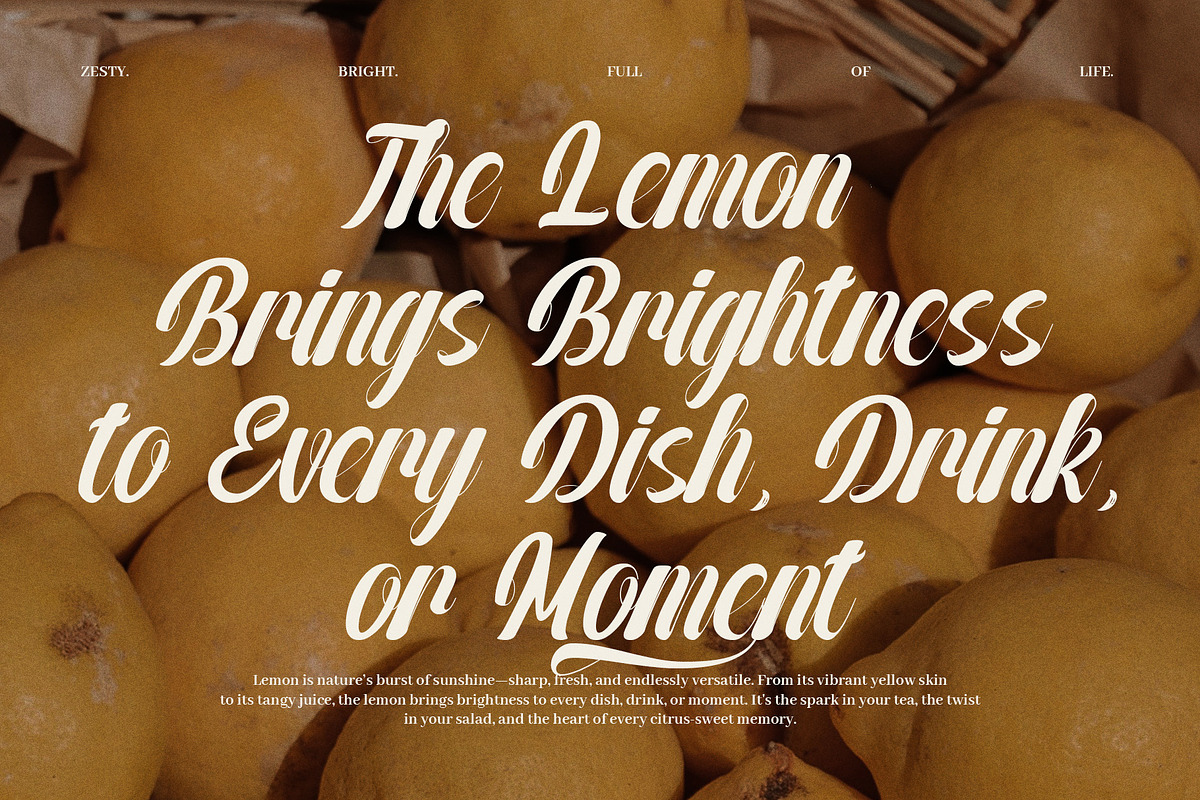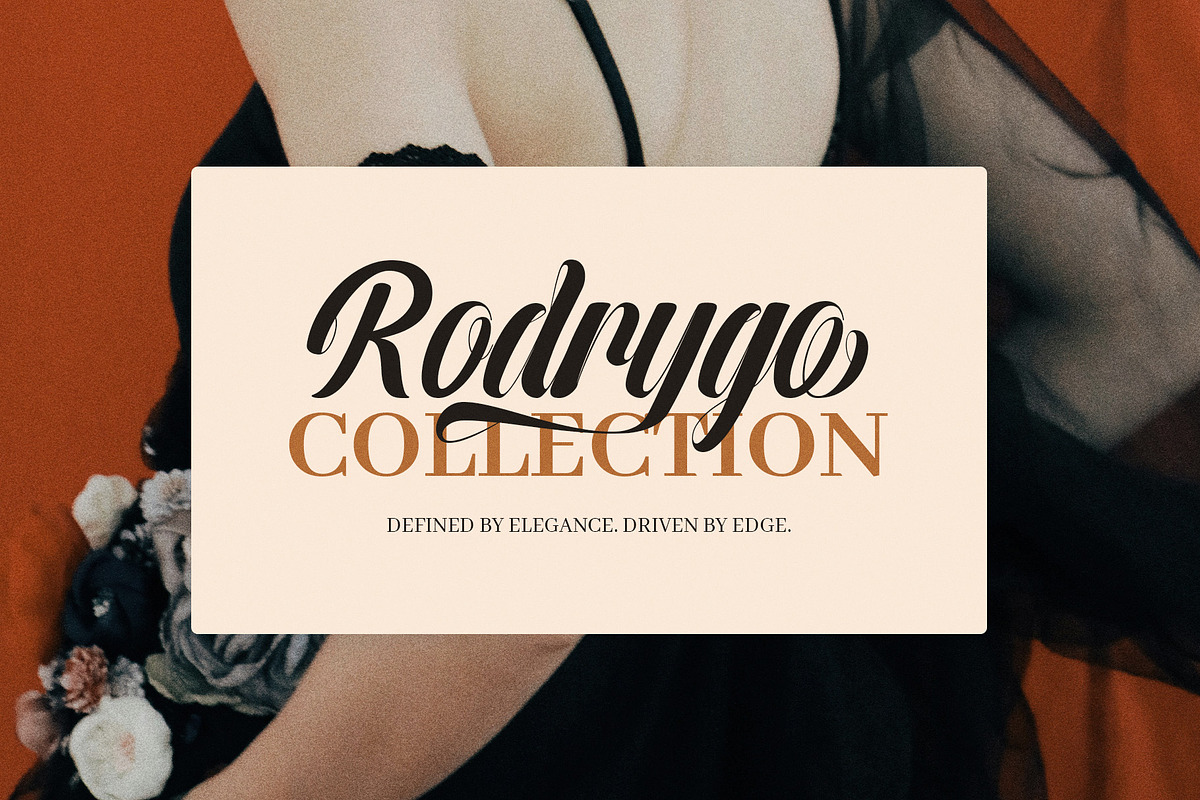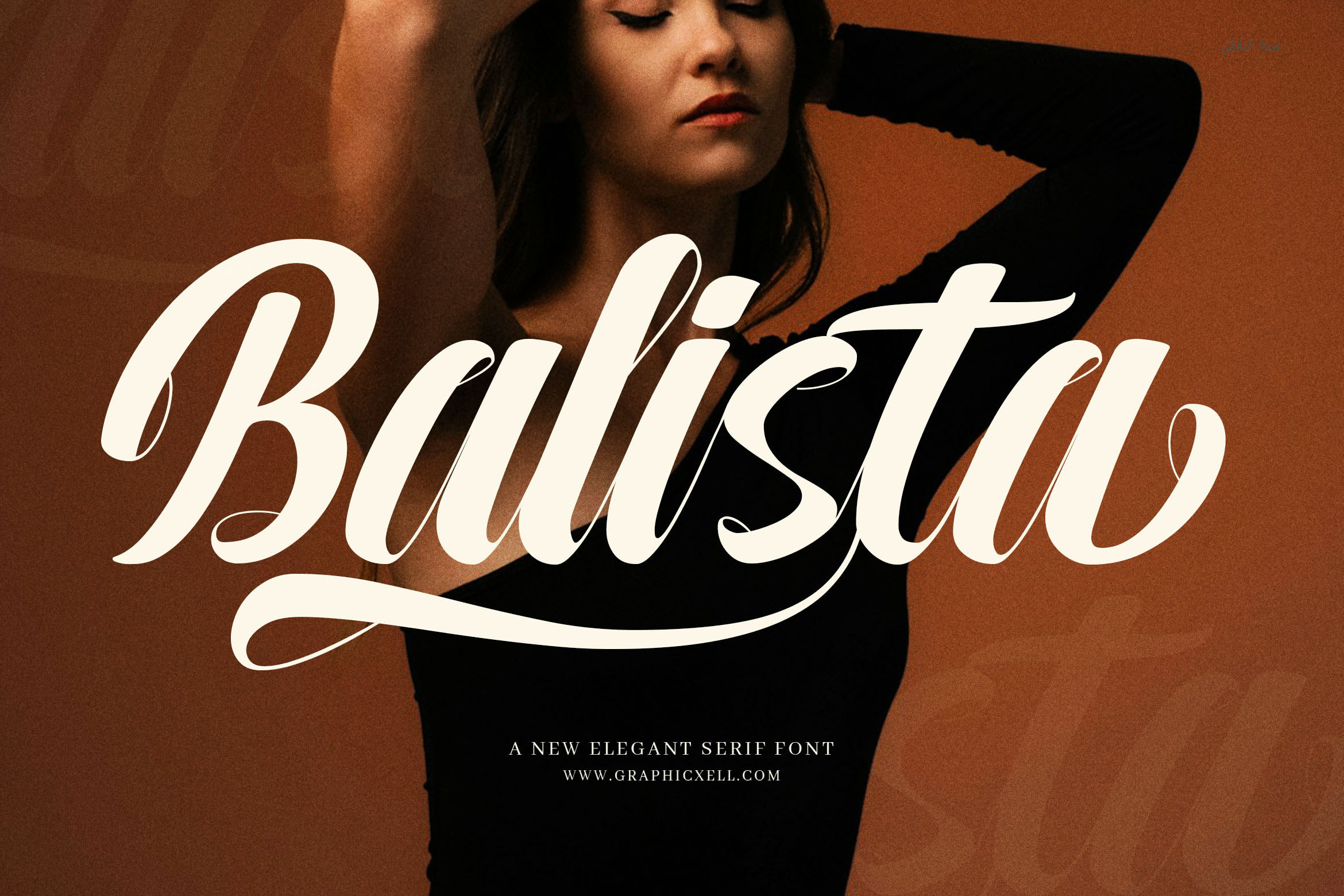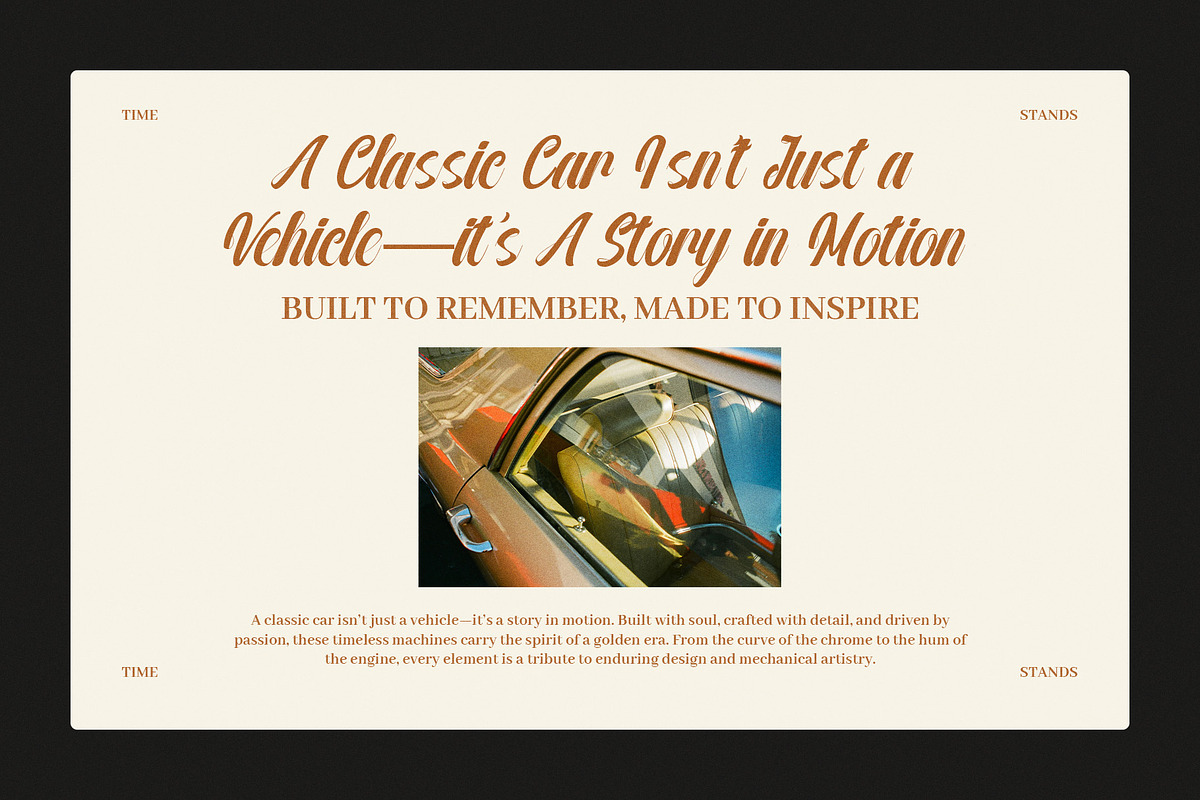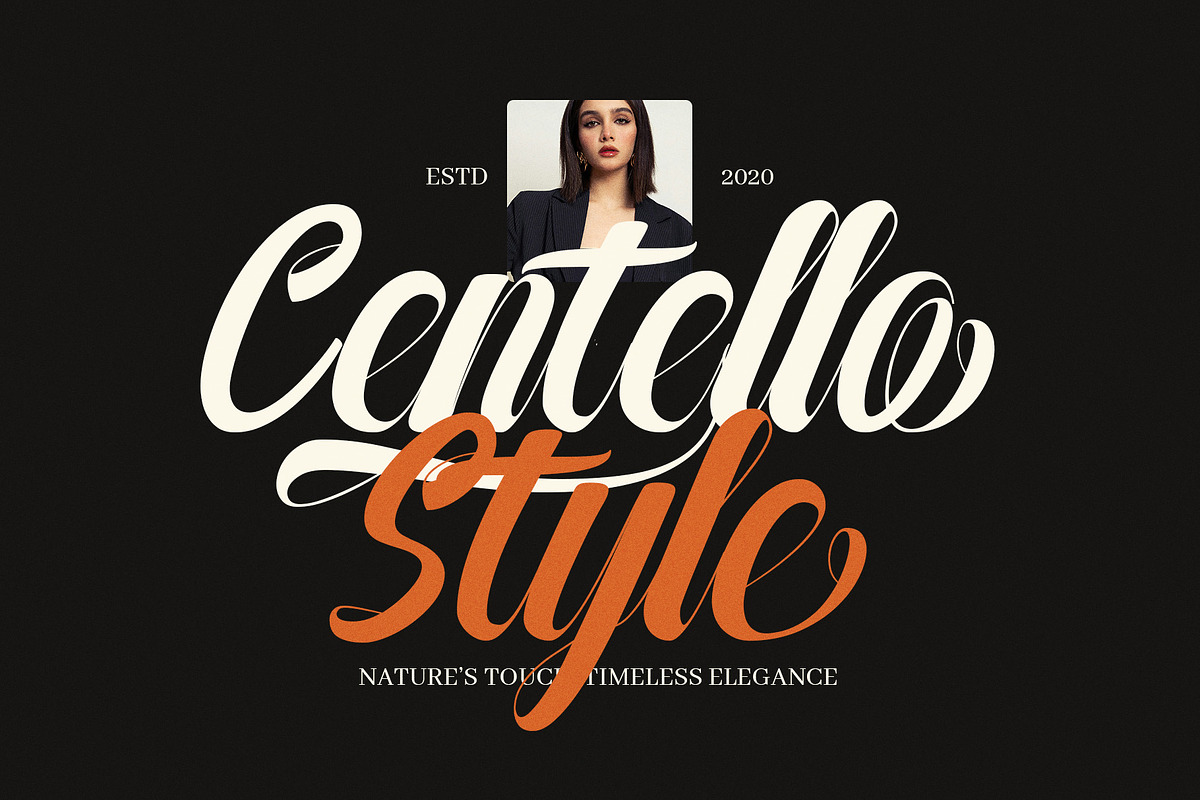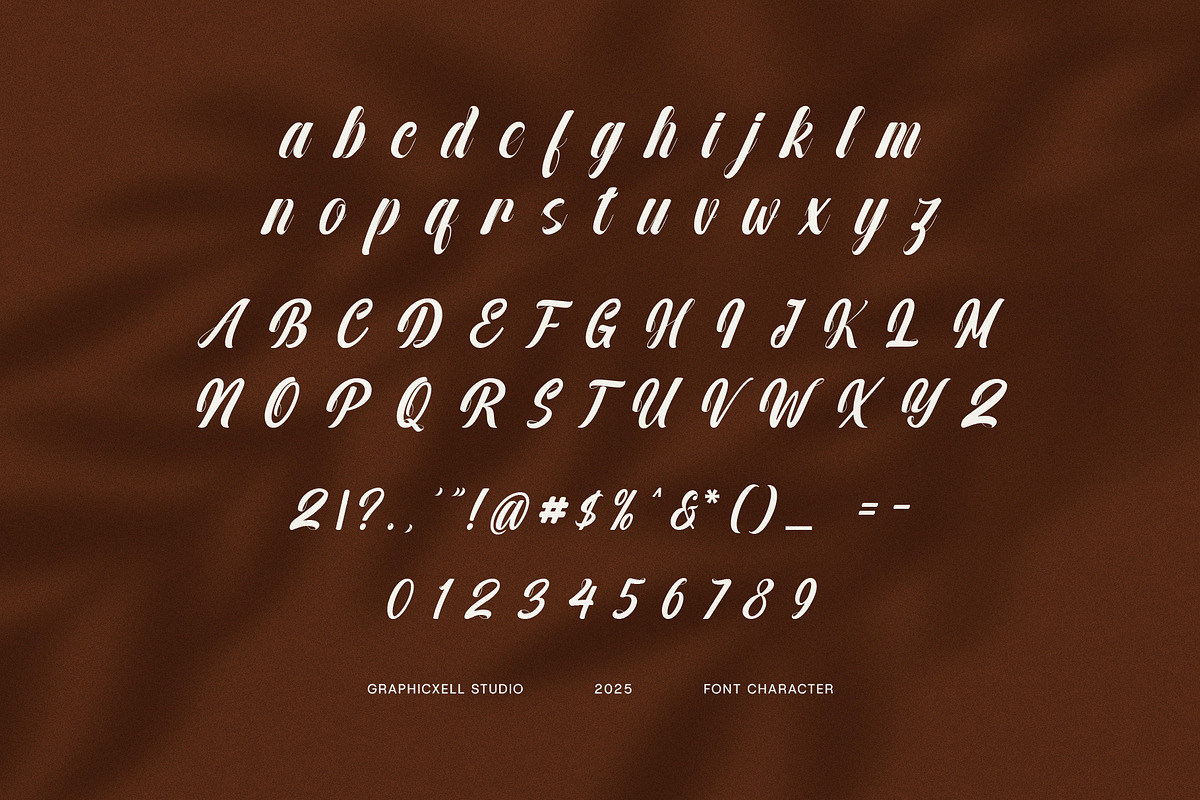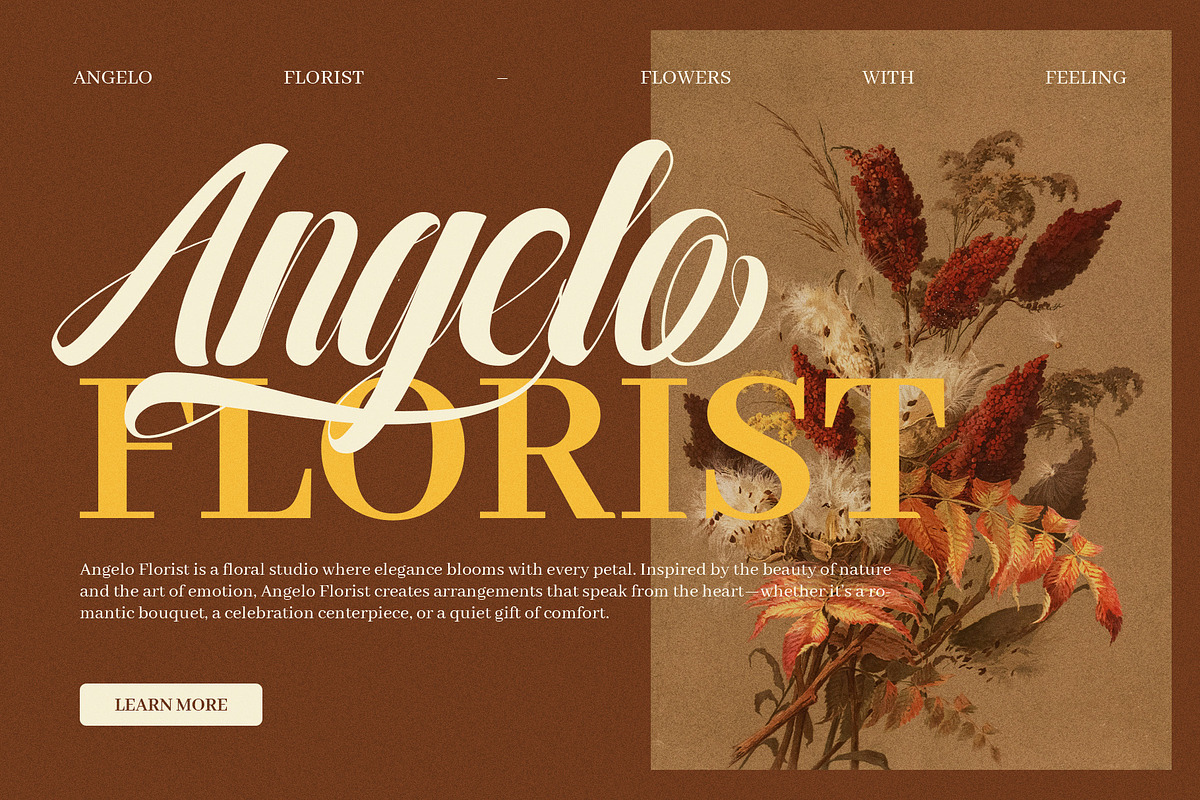
Balista Script Font
Introducing the Balista Script Font, an elegant and sophisticated typeface designed to bring beauty and charm to any creative project. This script font features smooth, flowing strokes and includes a wide variety of alternate characters, allowing you to craft stylish and personalized designs effortlessly.
Whether you're working on branding, wedding invitations, logo design, or even social media graphics, Balista delivers a timeless aesthetic. Its graceful letterforms and calligraphy-inspired curves give every design a professional yet romantic feel. This font is ideal for digital projects and print media alike—perfect for posters, business cards, websites, magazines, covers, and more.
What sets Balista apart is its balance of style and readability. You can easily mix alternate characters for a more artistic composition, especially useful for boutique branding, editorial layouts, or Canva templates. Its luxurious feel also makes it a favorite for high-end products and events.
✅ Key Features:
Elegant, flowing script font with a classic calligraphy look
Includes numerous alternate characters and stylistic sets
Ideal for weddings, branding, logos, and invitations
Versatile for print and digital use
Elevate your work with the Balista Script Font—a refined, beautiful, and flexible typeface built to inspire.